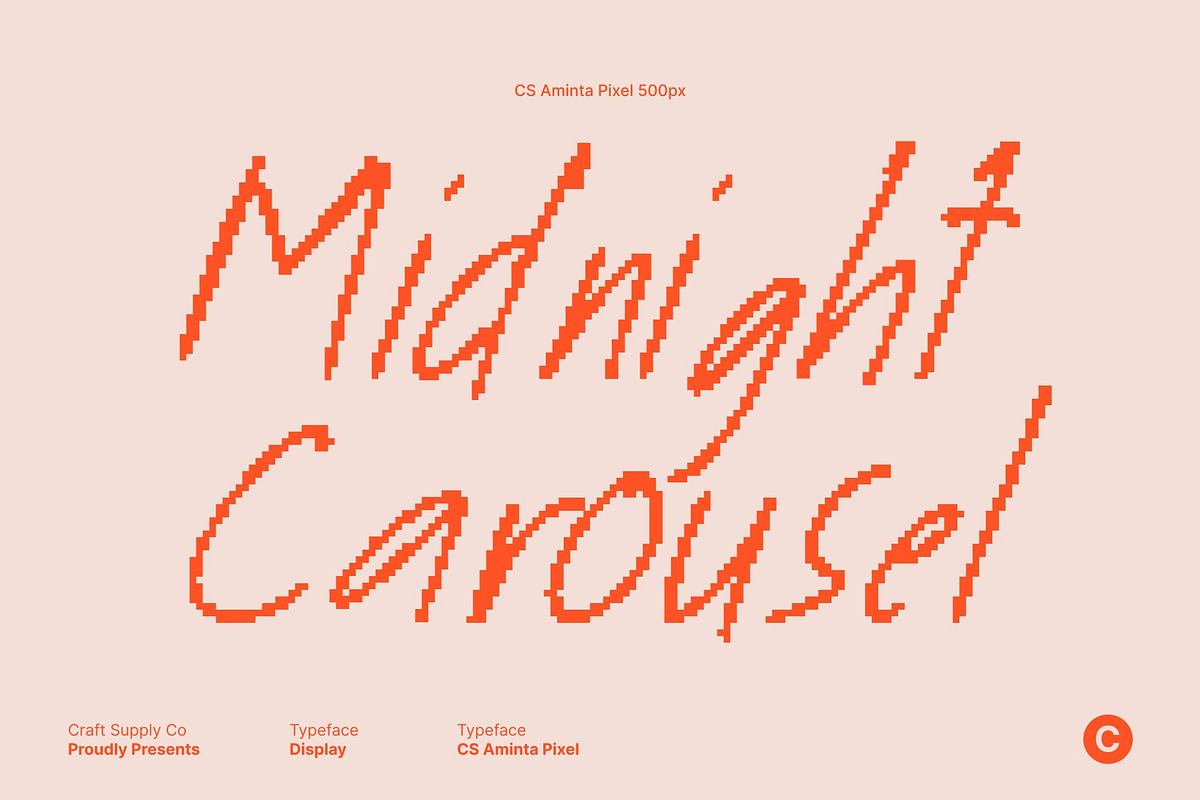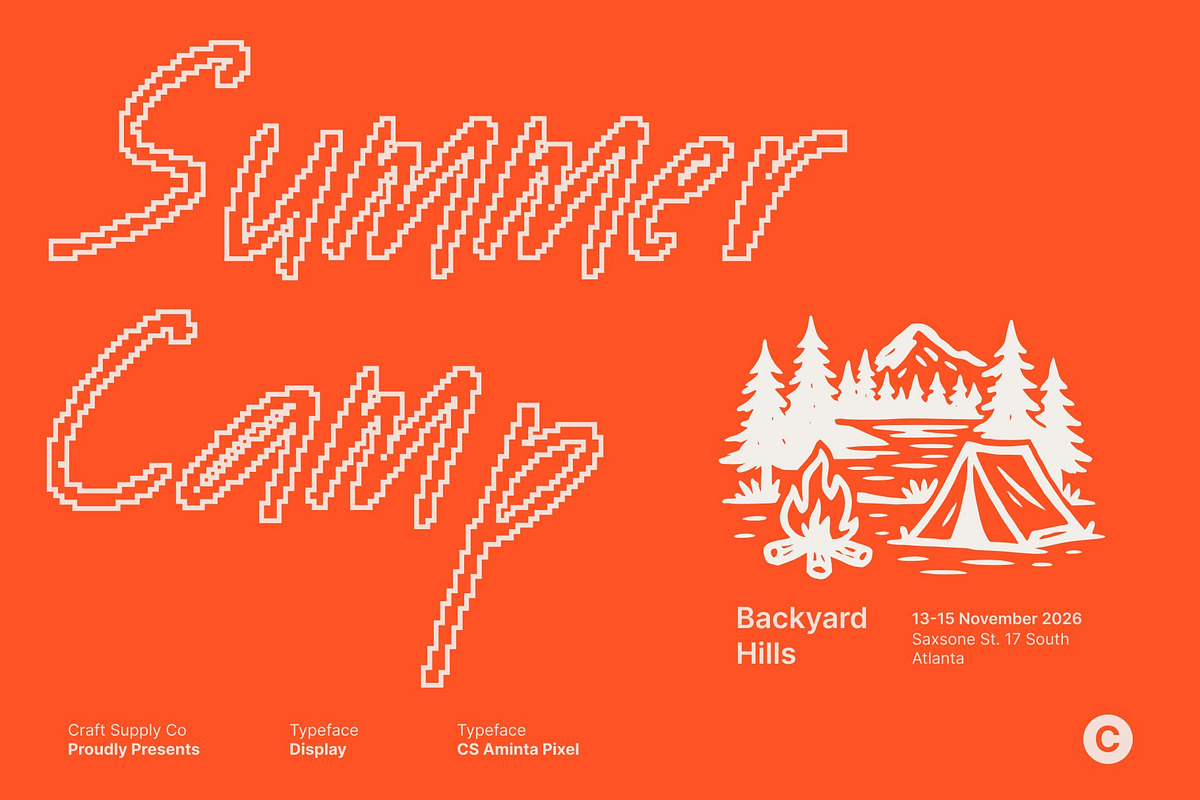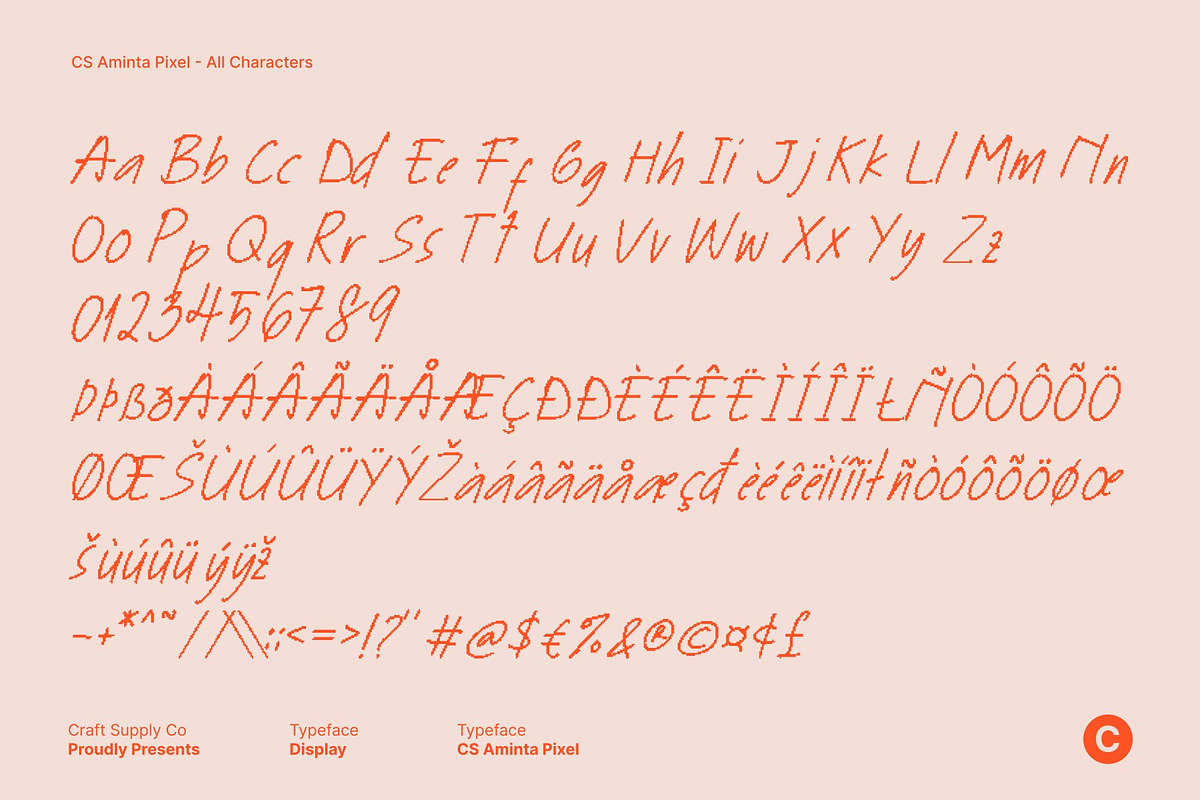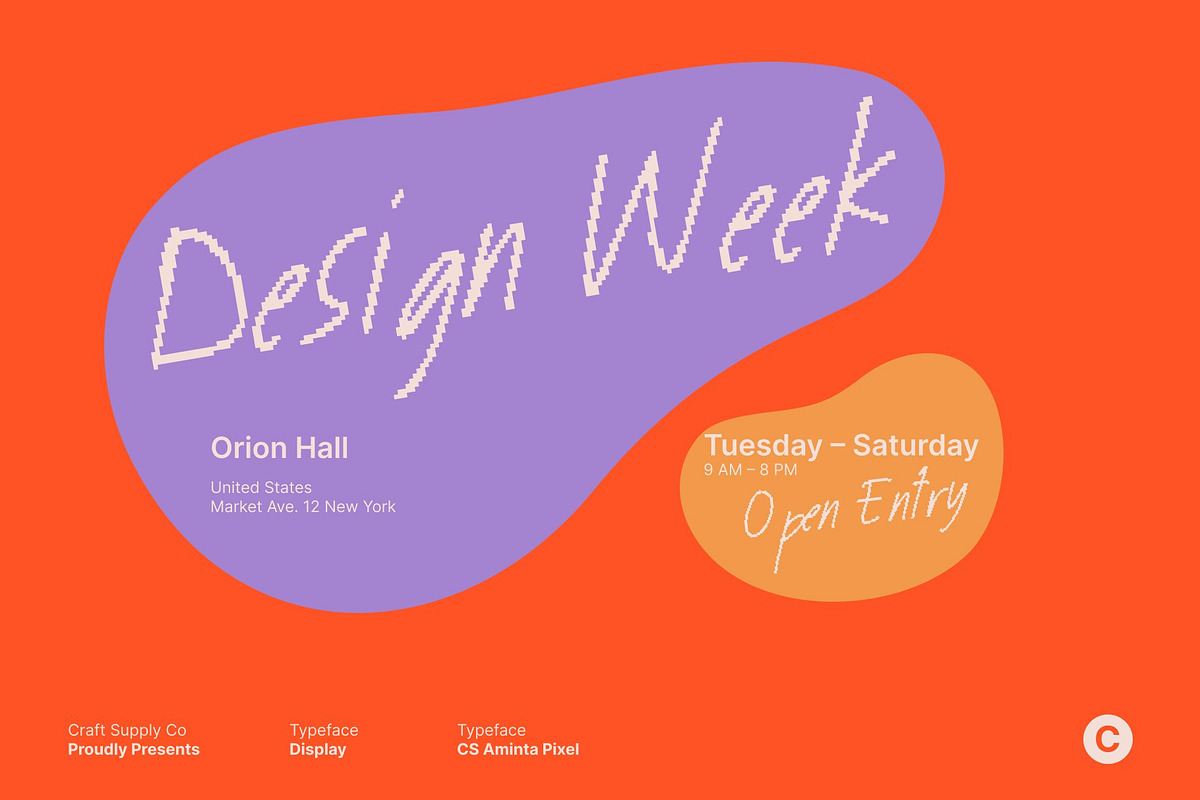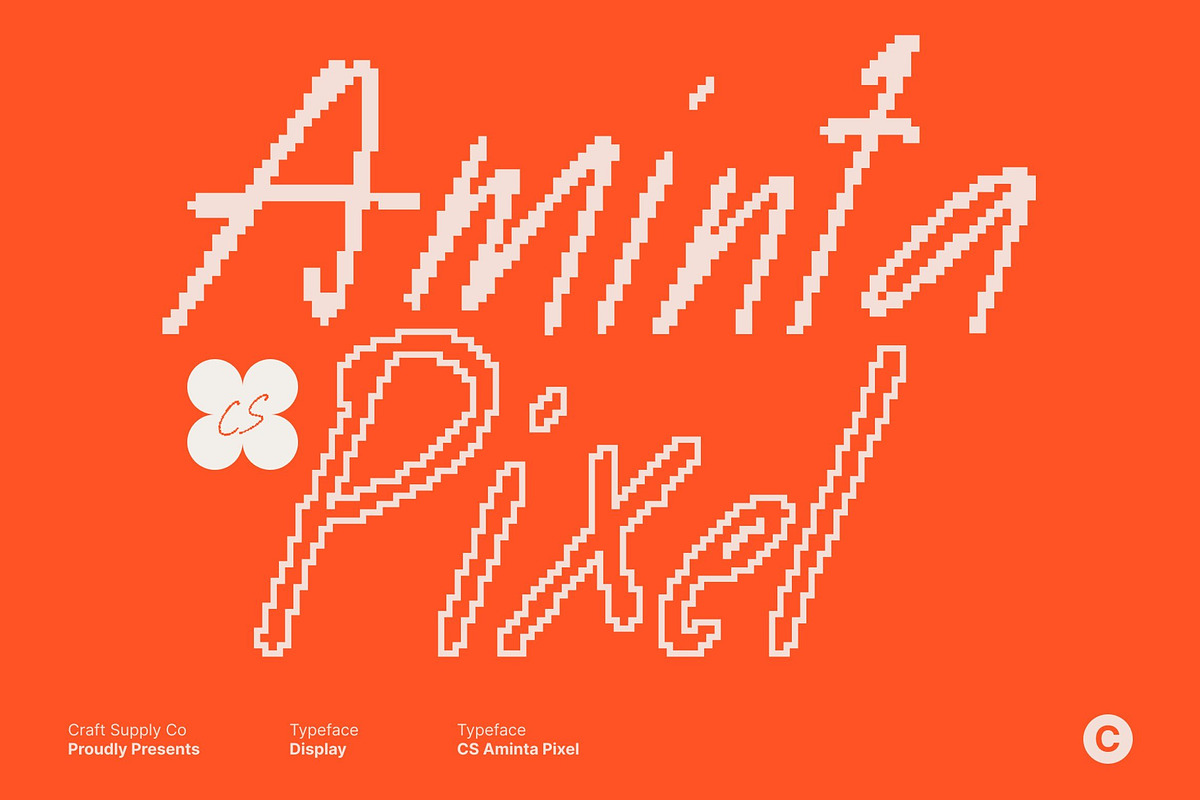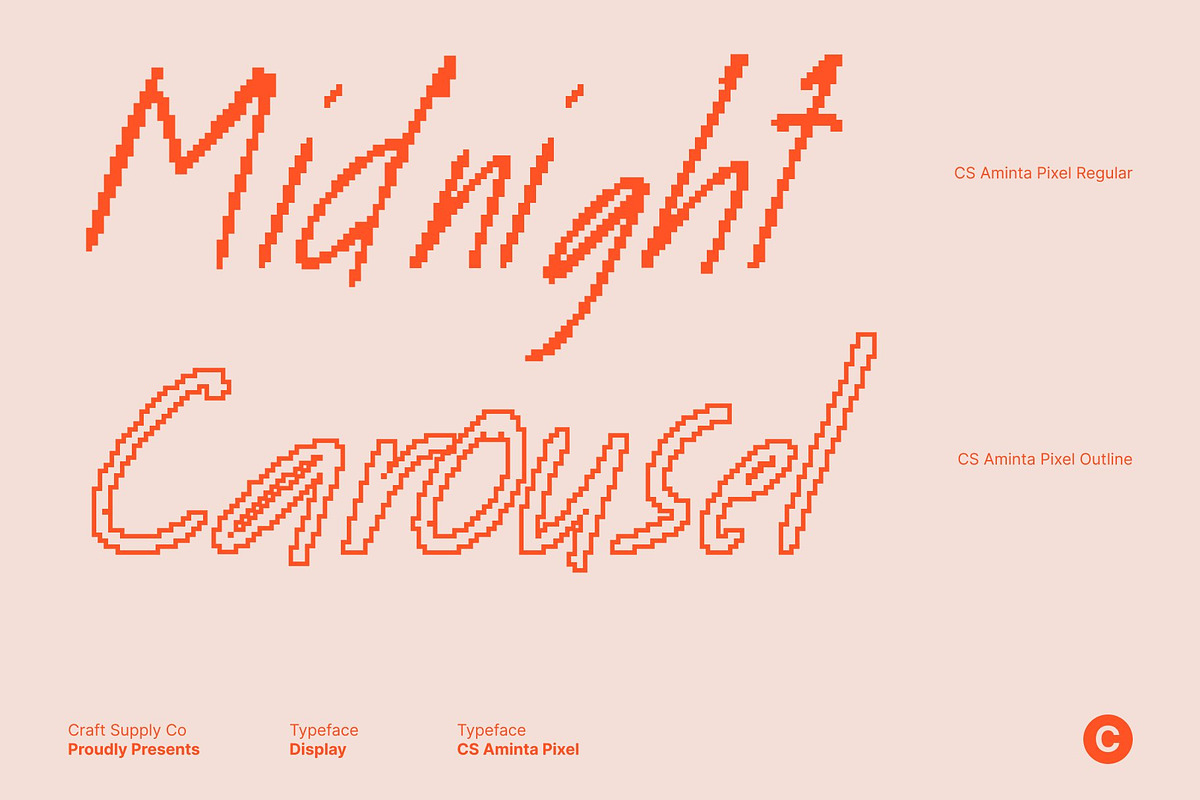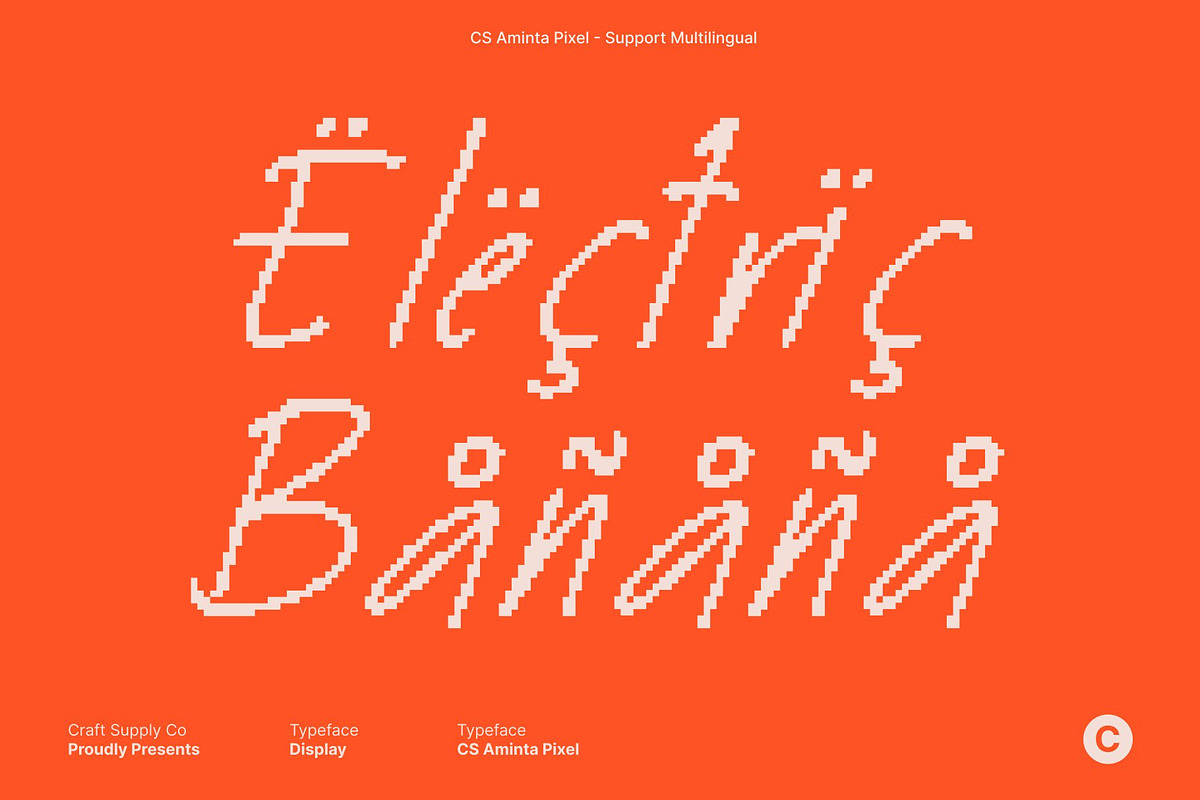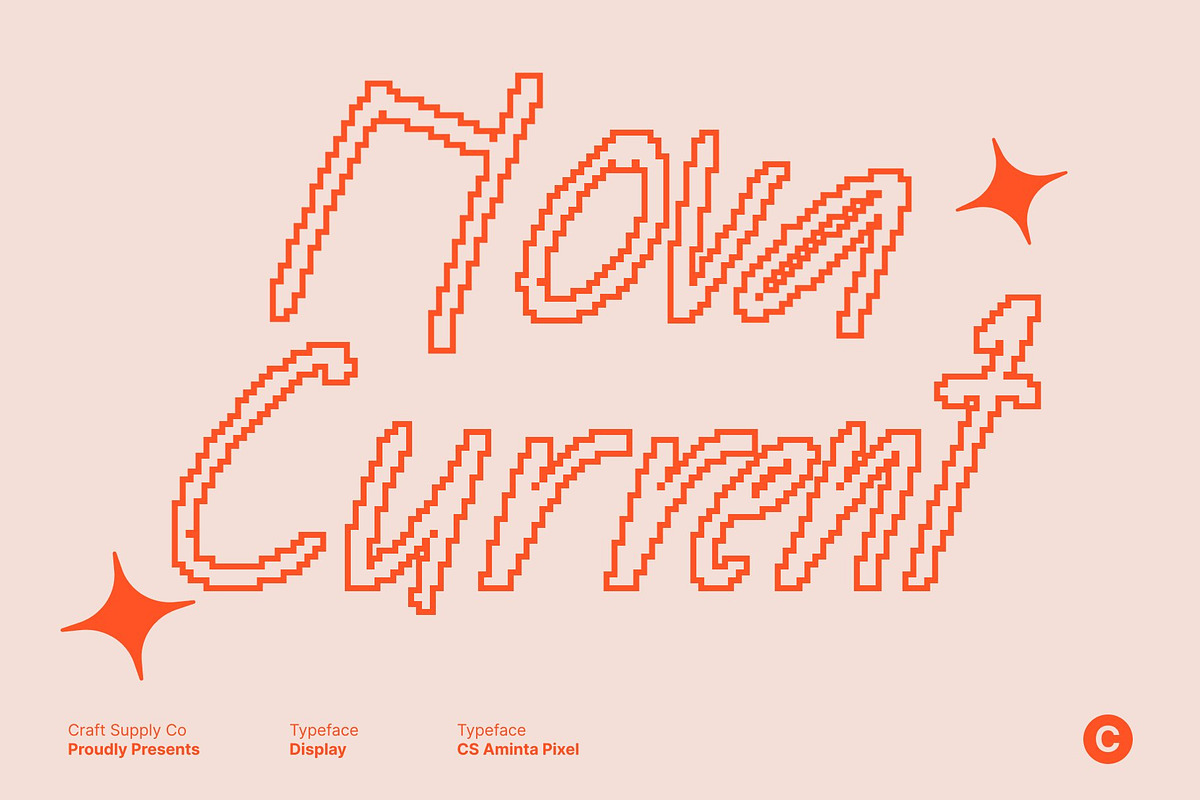
CS Aminta Pixel
CS Aminta Pixel – Natural Handwriting Font with Personal Charm
Genuine Pen-Stroke Texture with Pixel Warmth This is an authentic handwriting font that captures the natural flow and spontaneity of real pen strokes, enhanced with a subtle pixel texture. Its relaxed letterforms and gentle variations create a warm, personal feeling, evoking the sincerity of handwritten notes while adding a modern digital character. This balance makes the font feel both human and visually distinctive.
Smooth, Casual Strokes for a Friendly Expression Each character follows a soft, free-flowing rhythm that reinforces a casual and welcoming appearance. Slight imperfections in the curves give an honest, handcrafted quality, preventing it from feeling overly polished or rigid. The pixel styling adds a playful edge, making the font engaging, approachable, and full of personality.
Perfect for Greeting Cards and Personal Invitations With its warm and expressive nature, this font is an excellent choice for greeting cards, personal invitations, journals, and notes. The handwritten style enhances emotional messages, helping words feel more intimate, thoughtful, and genuine in both print and digital formats.
Ideal for Casual Branding and Creative Projects This font also works beautifully for casual branding, lifestyle logos, handmade products, cafes, and creative content. Its natural handwriting combined with a pixel touch delivers a relaxed, easy-going vibe, adding authenticity and charm to packaging, social media graphics, and playful design projects.
- CS Aminta Pixel Regular
- CS Aminta Pixel Outline